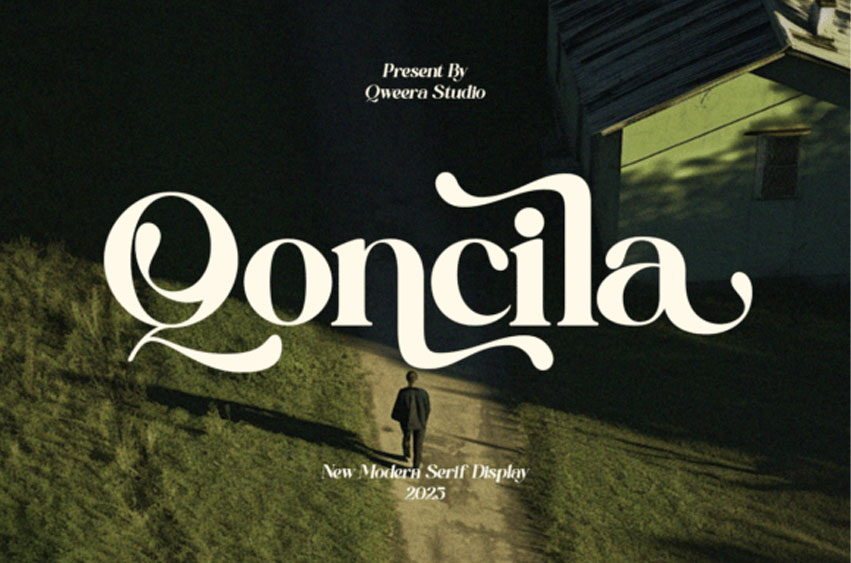
Qoncila Font is a modern luxury swash serif typeface featuring bold contrast and expressive curves. Designed for high-impact branding and sophisticated editorial layouts, it delivers dramatic elegance with clean structure.
Perfect for logos, fashion campaigns, packaging, boutique branding, and creative poster design, Qoncila brings premium character and strong visual identity to any project.
Its swash alternates and refined ligatures add flexibility and personality while maintaining professional balance.
Logo design, fashion branding, editorial layout, magazine covers, luxury packaging, boutique identity, statement typography.